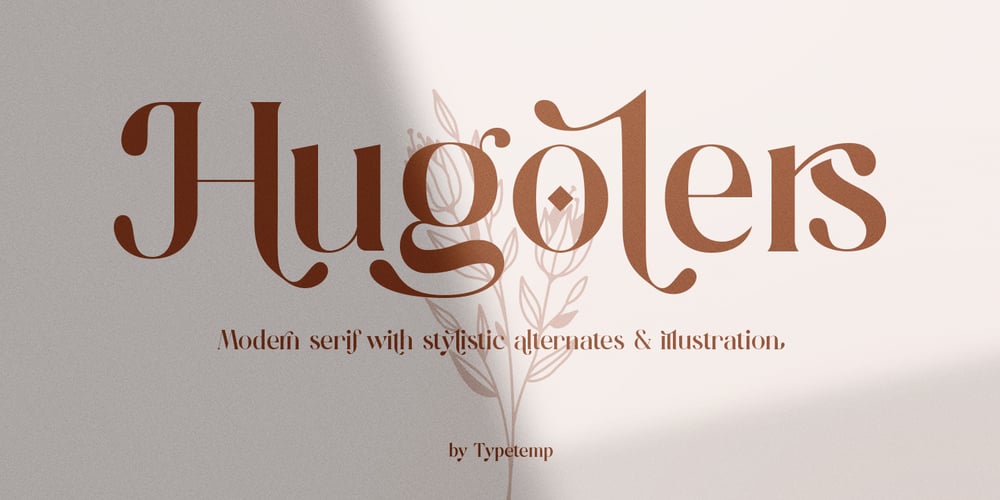
Hugolers Stylish Modern Font Family was designed by Egi Ahmad Mufid and published by Typetemp Studio. Hugolers Stylish Modern contains 1 styles and family package options. HUGOLERS is a modern-style serif font with alternatives and ligatures that create stunning logos, quotes, posts, blog posts. branding projects, magazine imagery, wedding invitations, and much more.FEATURES Stylistic Alternates & Ligatures Numerals & Punctuation Accented characters Illustration Floral Ai/Eps Multiple Languages Supported Contact me with an inbox message If you have any question. Thank you! Happy Creating.